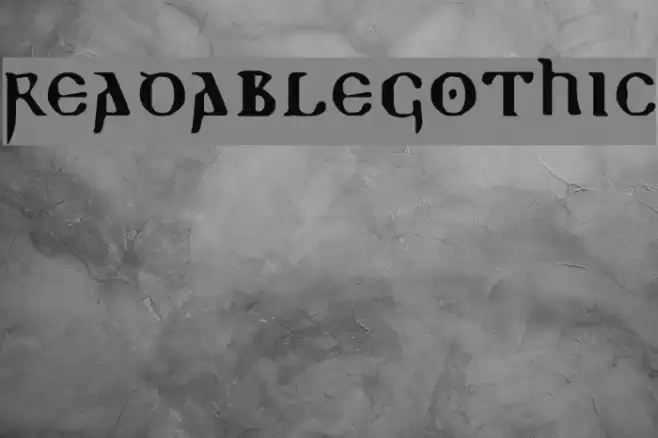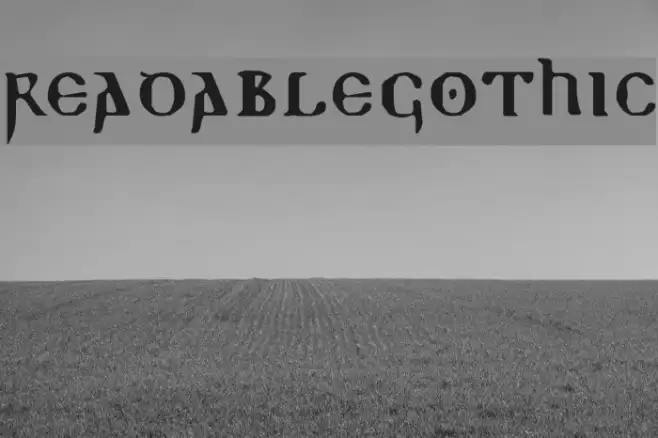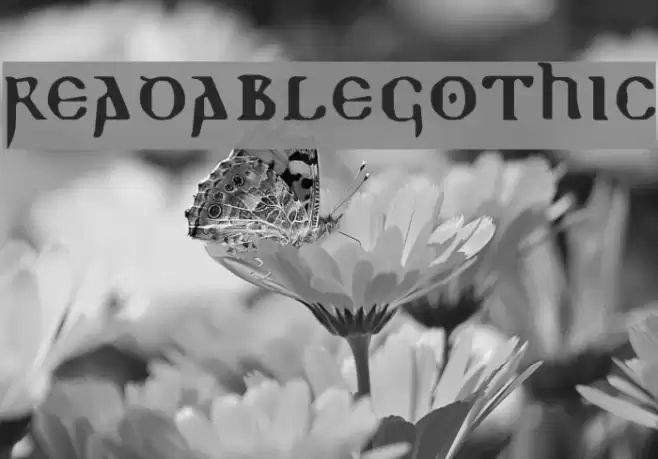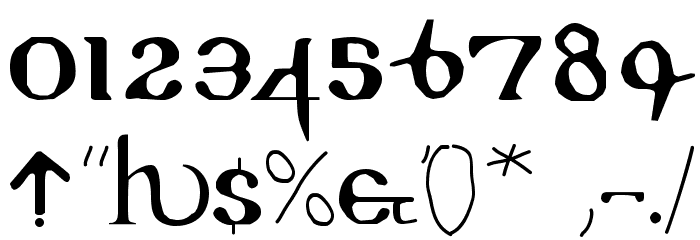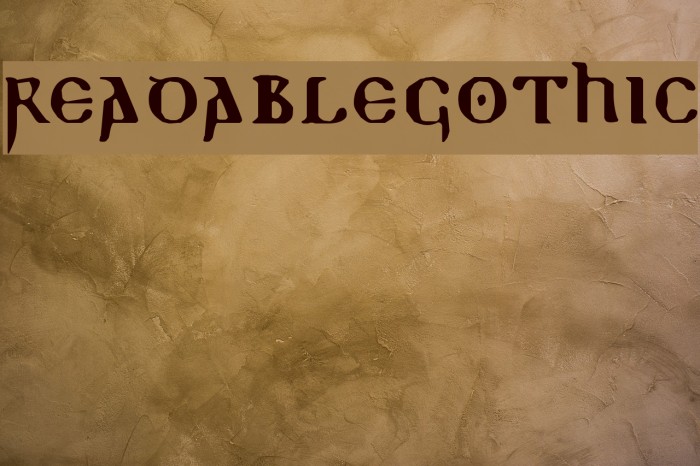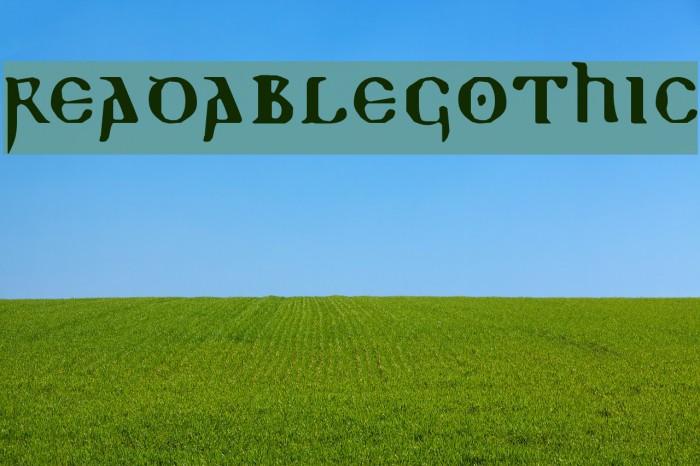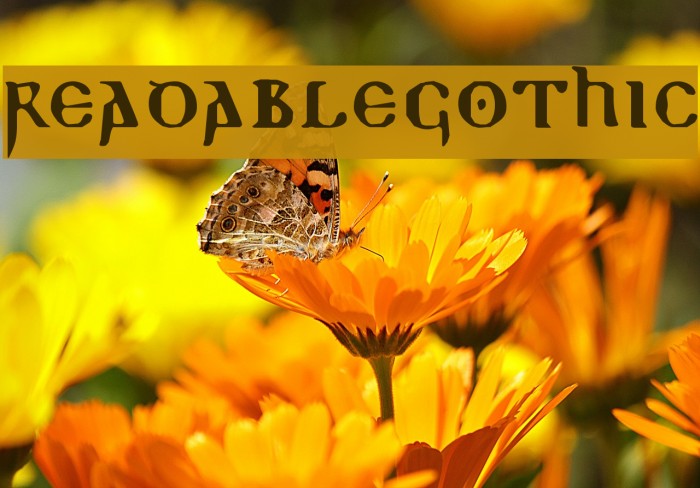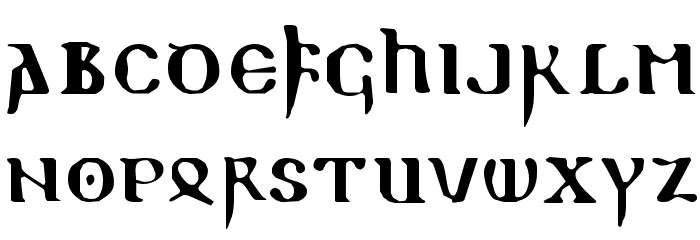
ReadableGothic Font
ReadableGothic Description
This font features a distinct Gothic style with sharp, angular lines and dramatic serifs that evoke a medieval manuscript aesthetic. The uppercase letters are bold and commanding, with unique flourishes that add a sense of historical depth. The lowercase letters maintain the same stylistic elements, ensuring consistency throughout. Numbers and special characters are crafted with the same attention to detail, making them suitable for thematic projects. The overall design is both decorative and legible, making it ideal for projects that require a touch of antiquity and elegance.
A Gothic-style font with sharp serifs and medieval flair from Gothic fonts.
- Proposed Projects: Ideal for historical-themed designs, book covers, posters, and branding that requires a vintage or medieval touch.
- Overall Style: Vintage
- Use Case: Headlines, Logos, Decorative text